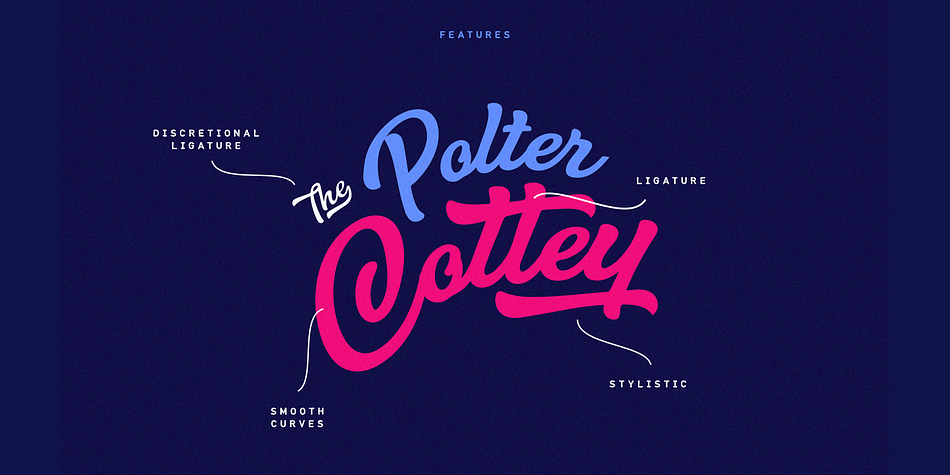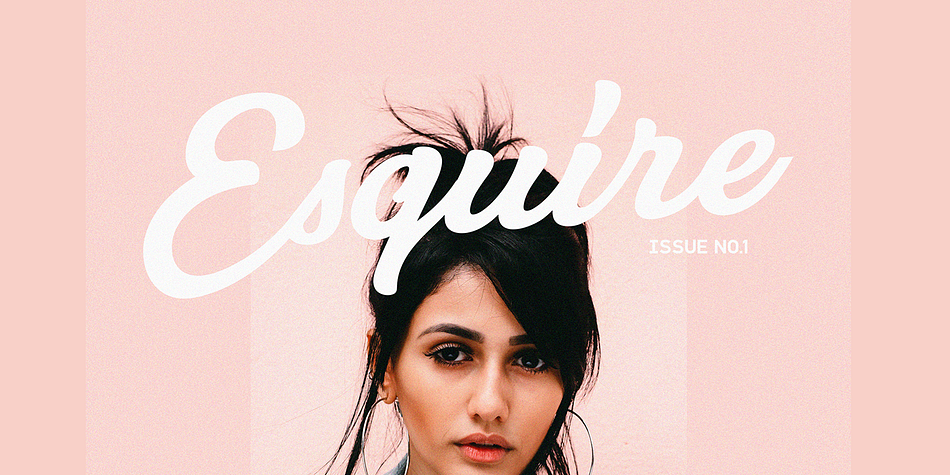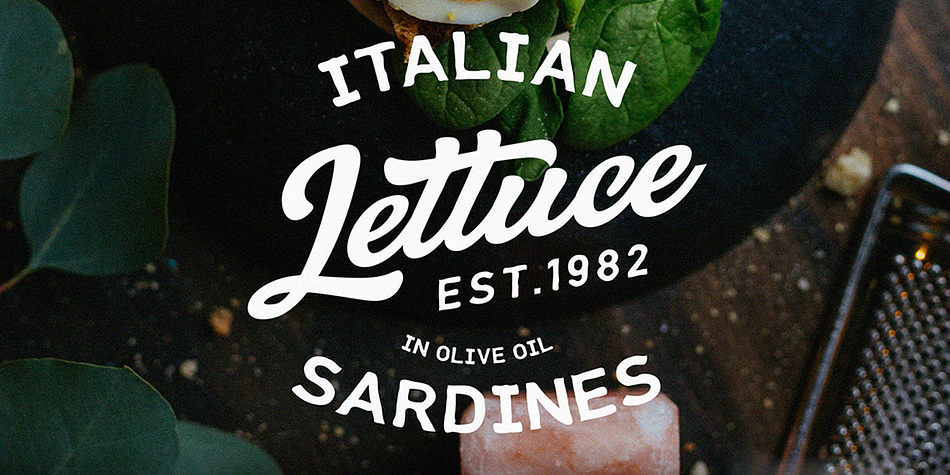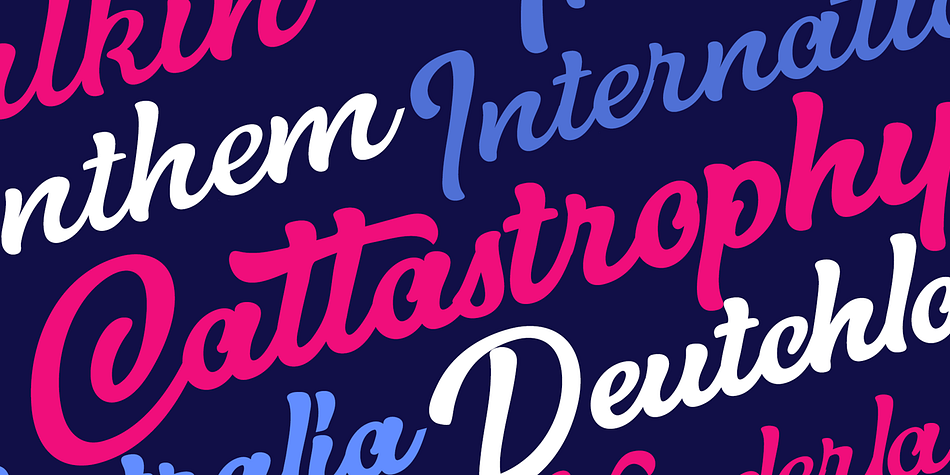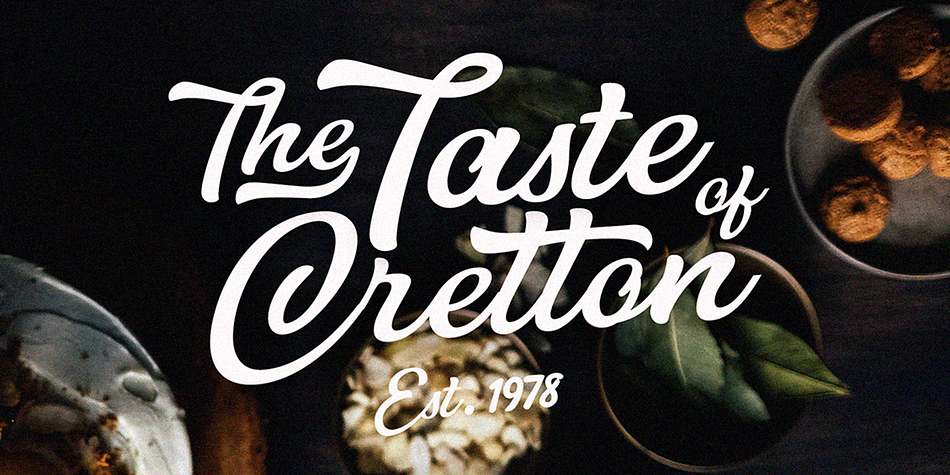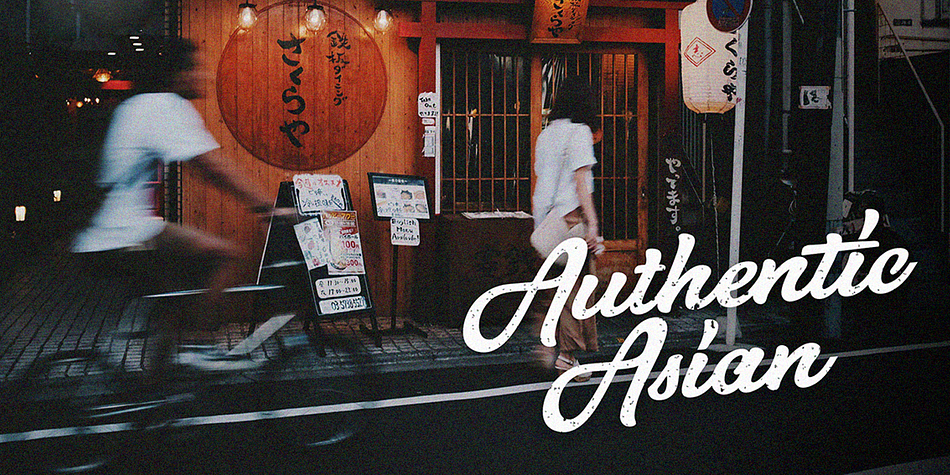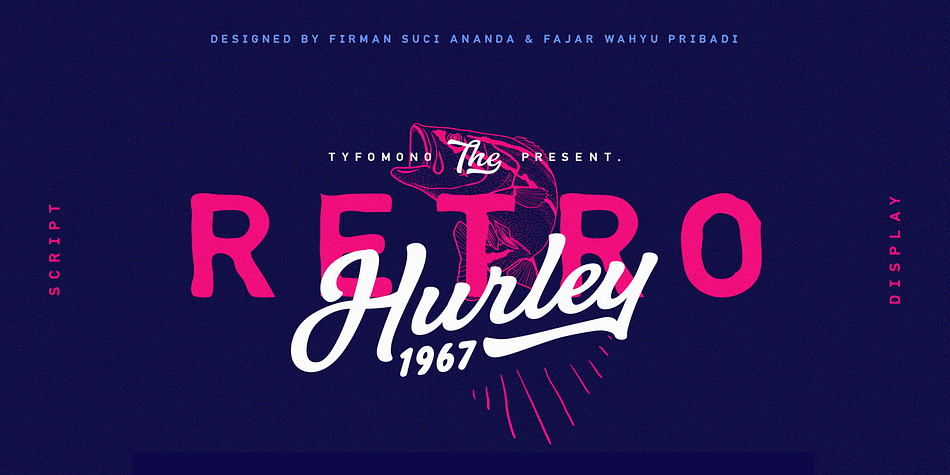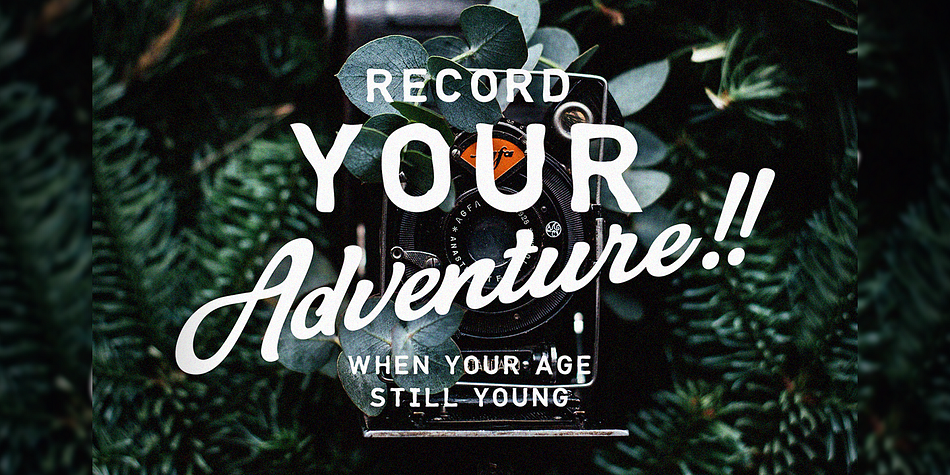
Hurley 1967 is a multiple classification font family. This typeface has seven styles and was published by Firman Ananda.
Hurley 1967 is a bold script, with clean lines and smooth curves combined with beautiful features! This simply amazing font family comes with 7 styles.
It includes opentype features - stylistic alternates and a comprehensive set of natural looking ligatures to add the realistic nature of the typeface.